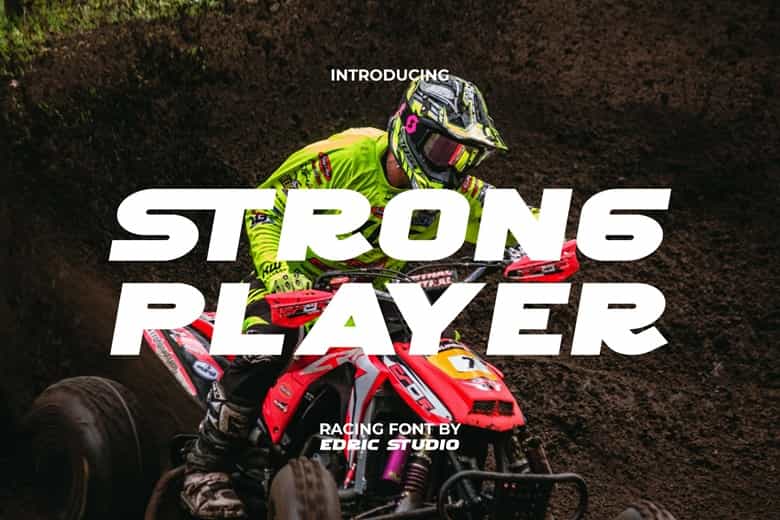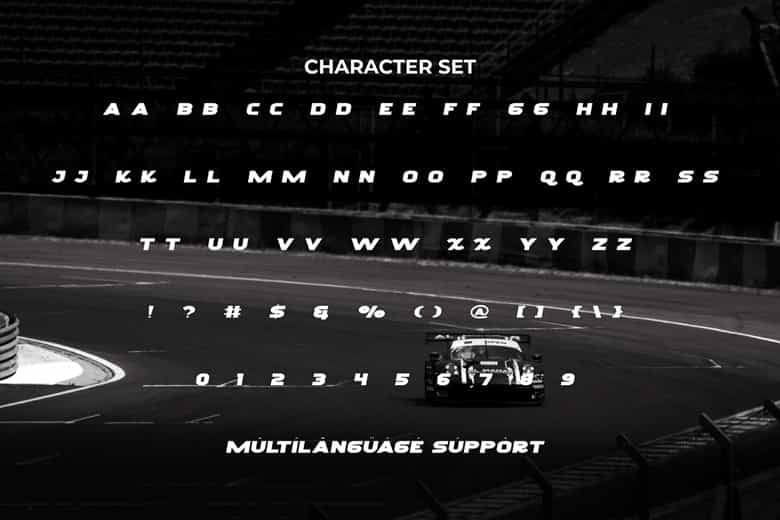
Strong Player is a sport type display font with the contemporary features for all modern users and designers. If you must have a highly distinguishable straight sans-serif fonts suitable for display purposes, then this might be the font you are considering.